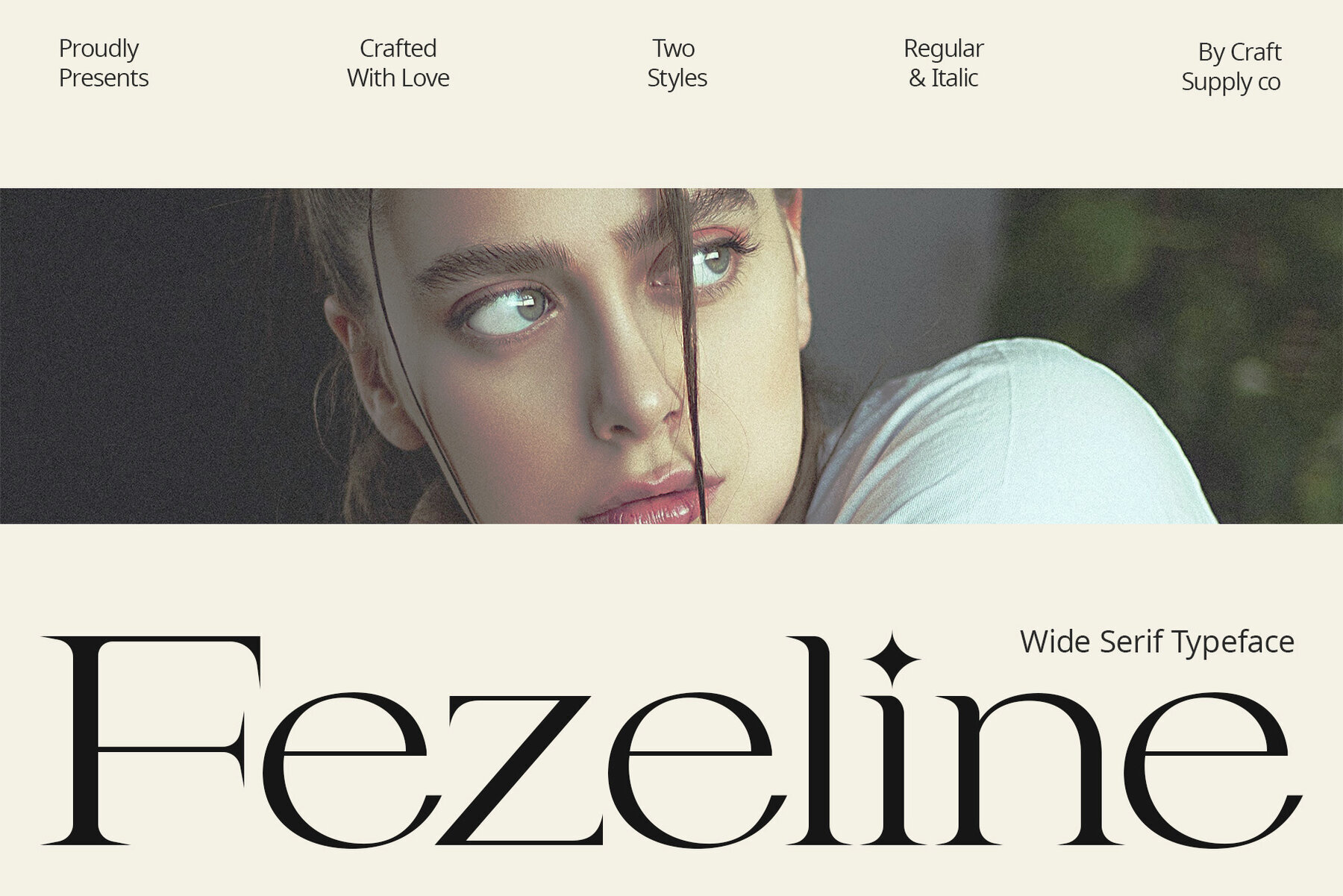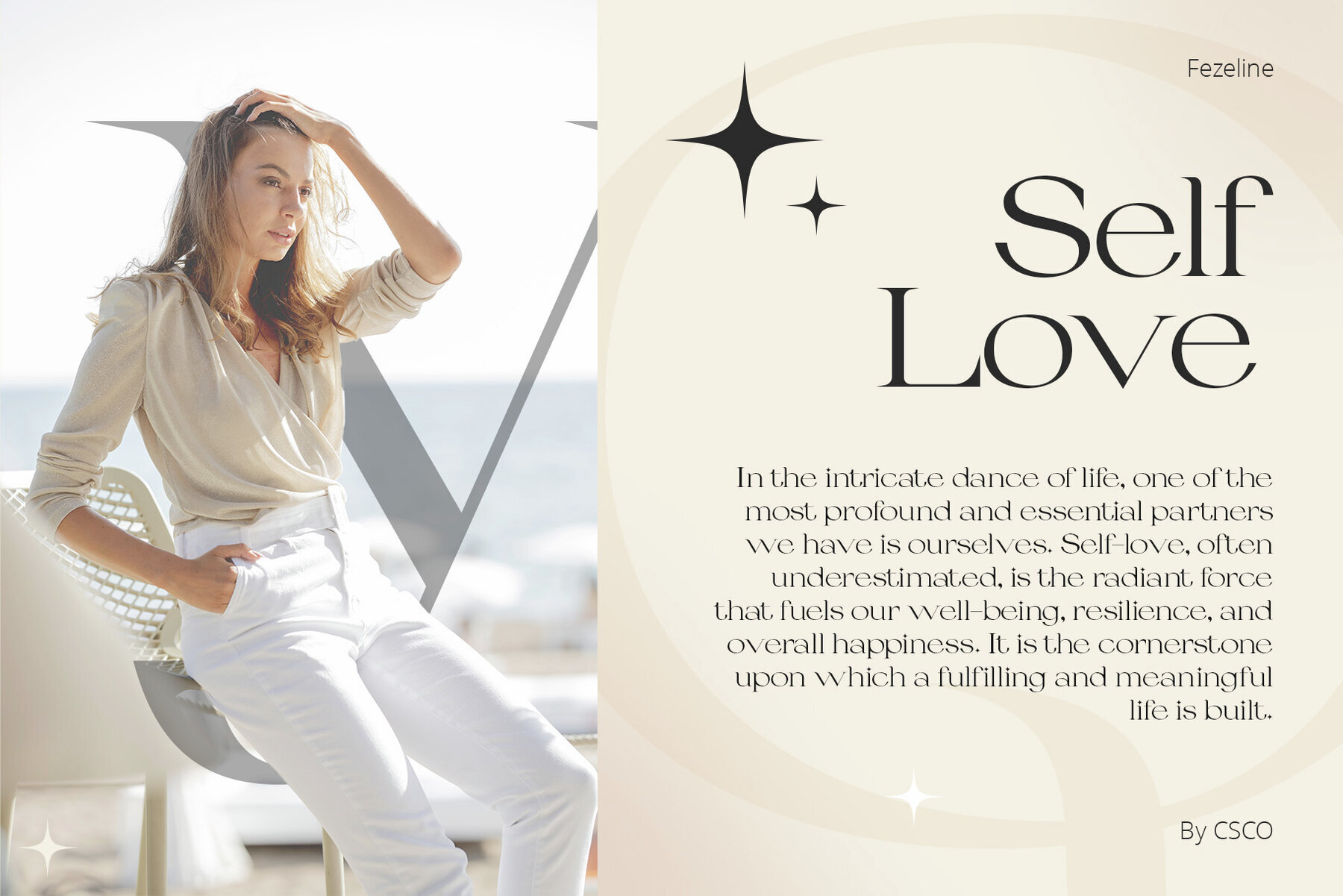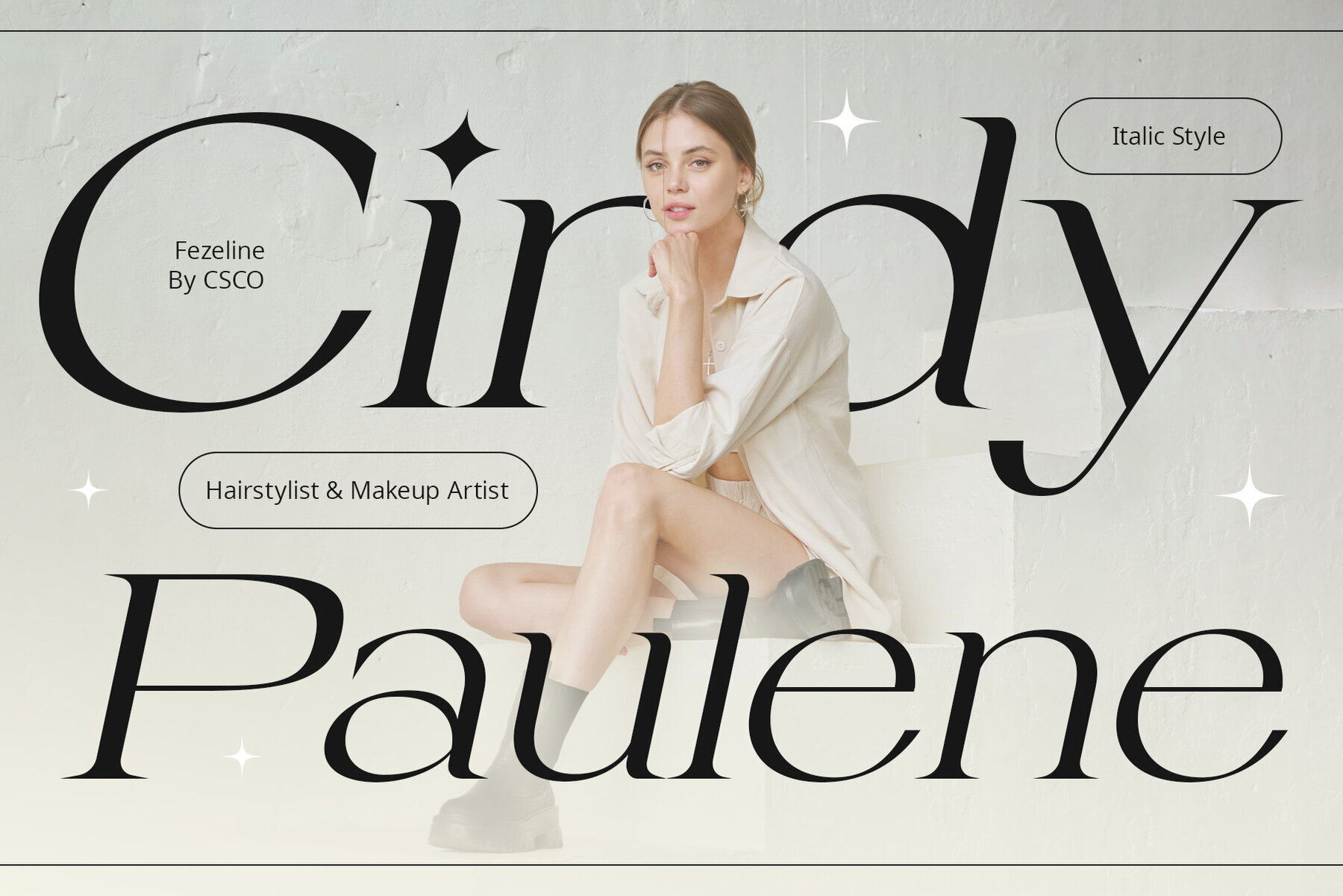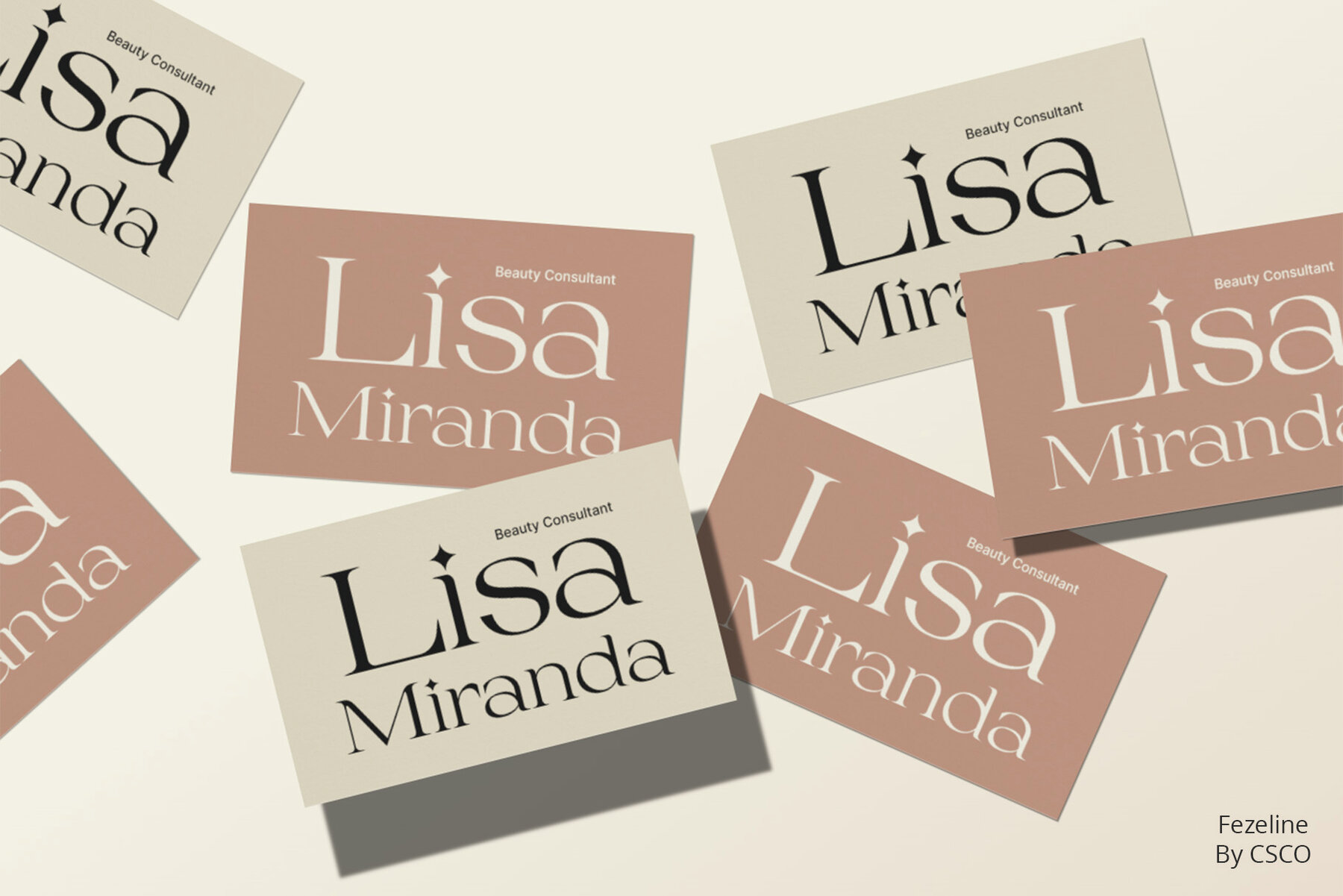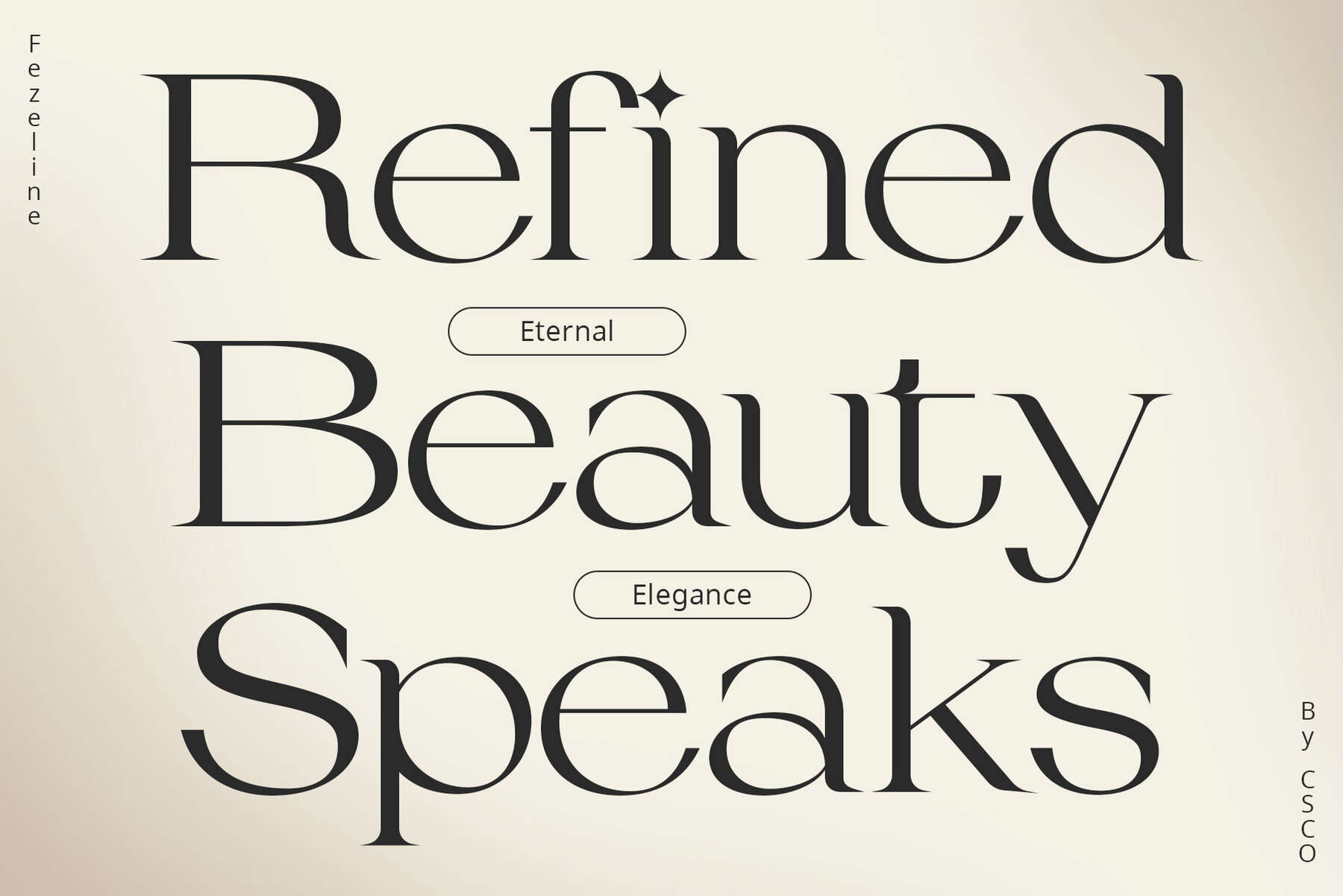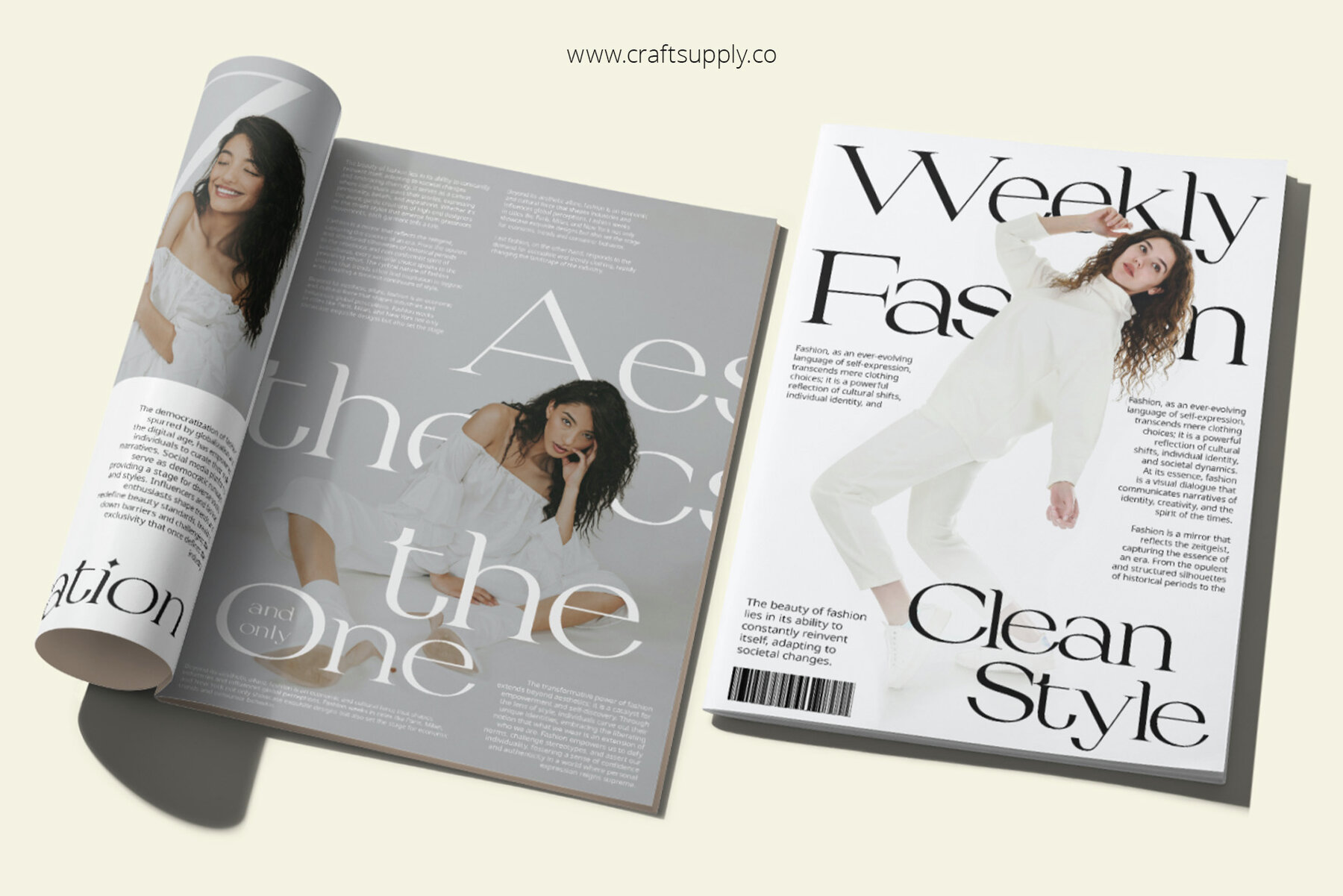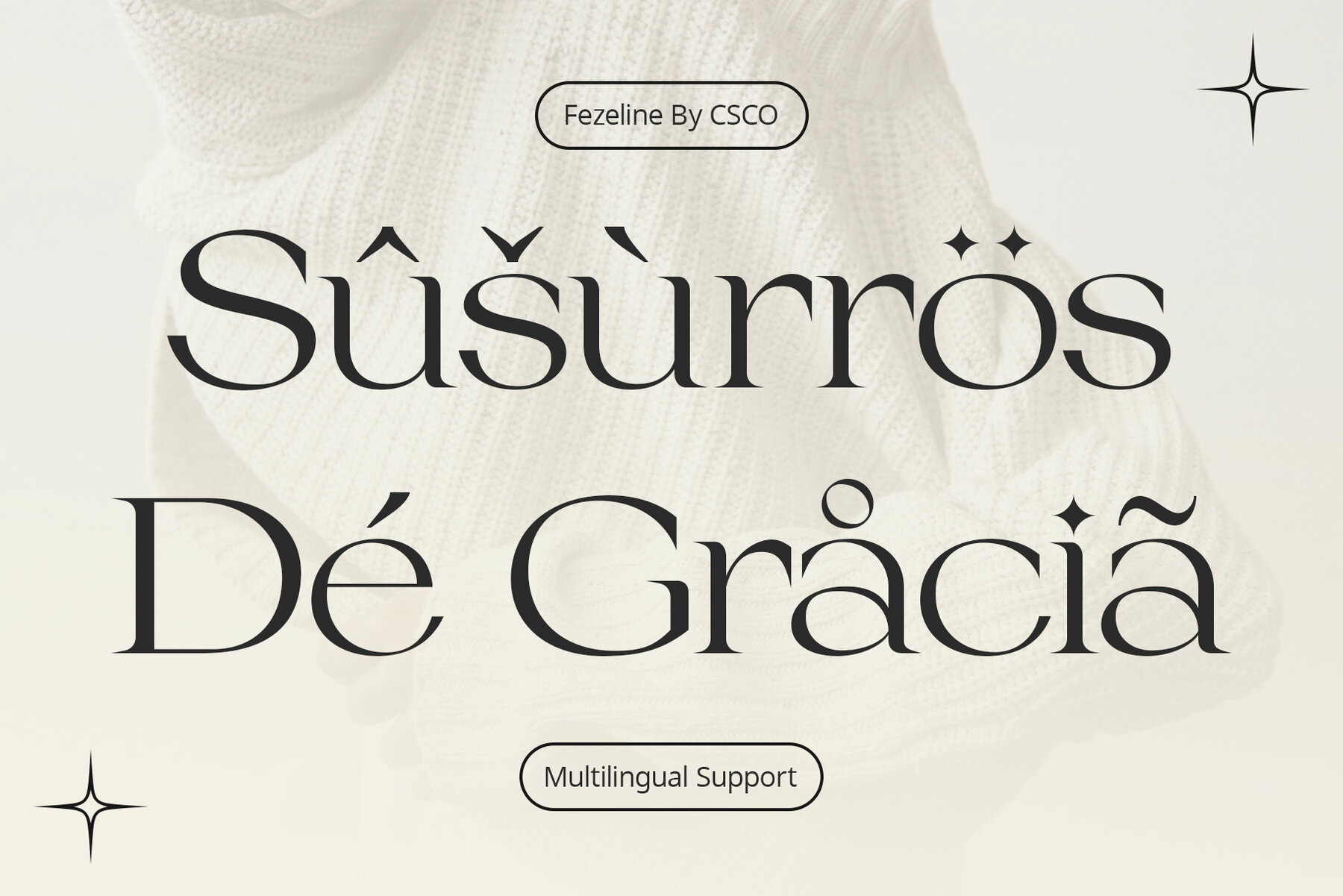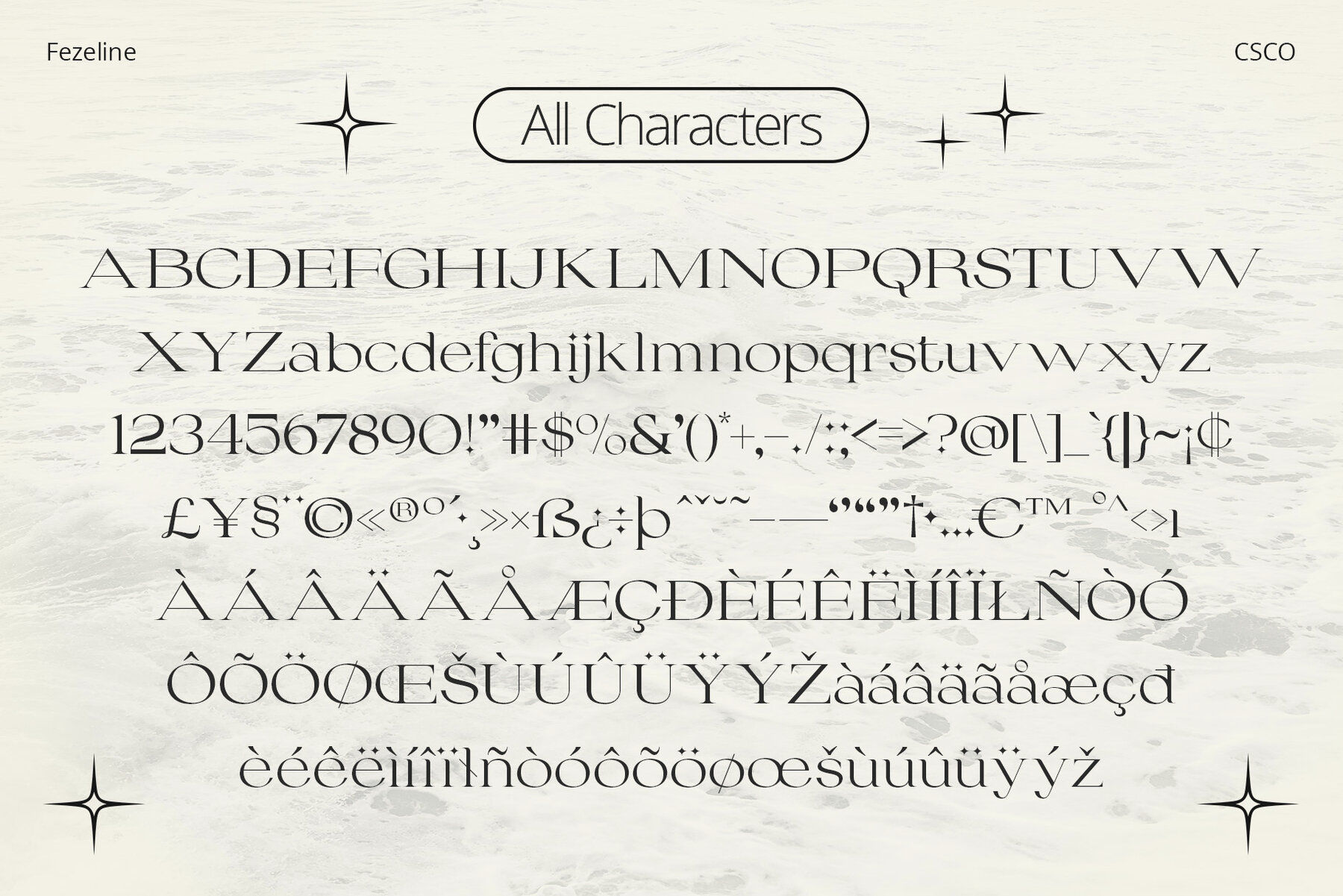
Fezeline Font
Embrace the grandeur of Fezeline, an elegant serif font with a wide design that captivates with its majestic presence. The expansive letterforms of Fezeline create an aesthetic that is both regal and contemporary, ensuring it stands the test of time. Fezeline transcends trends with timeless sophistication. Its wide letterforms exude an air of opulence and provide a timeless allure. Each stroke is a testament to meticulous design, effortlessly combining tradition and modernity. Fezeline’s wide design isn’t just about space; it’s a deliberate choice that commands attention. Each character carries a majestic impact, making it perfect for high-end designs. Whether used for headlines or body text, Fezeline leaves an indelible impression. While the width adds a touch of luxury, Fezeline remains versatile. Whether in editorial layouts or branding, this font effortlessly infuses elegance into diverse design scenarios. Its adaptability ensures that Fezeline can seamlessly integrate into a myriad of creative projects, enhancing the overall aesthetic. You can use this typeface without needing any specialized software. If you have any inquiries or need assistance, please feel free to contact us. We appreciate your support in enhancing your creative projects! Best regards, Craft Supply Co.Fezeline Font: The Majesty of Elegant Serif Design
Timeless Sophistication
Majestic Impact
Elegant Versatility